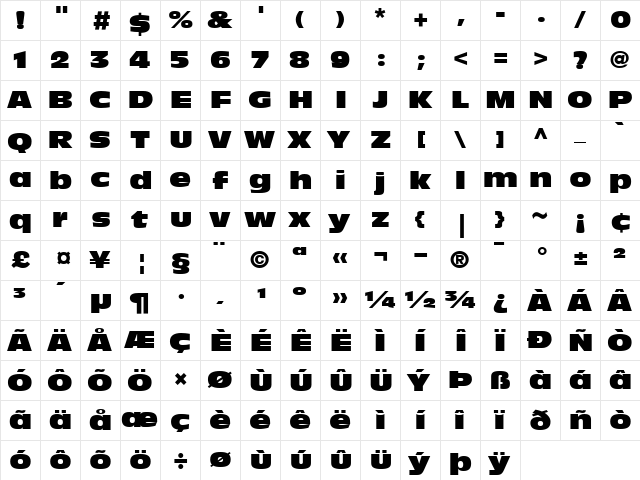
AntiqueOliveNord Roman Font Preview
AntiqueOliveNord Roman
Design Context for AntiqueOliveNord Typeface
AntiqueOliveNord has the warm character of retro typography — evoking diners, record sleeves, and the golden age of print advertising.
Font Pairing: Combine AntiqueOliveNord with a simple slab or neutral sans — period-accurate companions reinforce the vintage feel without competing for attention.
Pro Tip: Use AntiqueOliveNord for headlines and pull quotes rather than body copy — its personality is best appreciated in short, focused bursts.